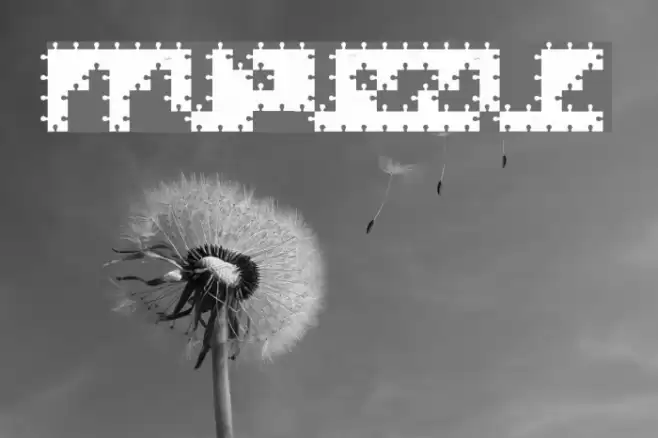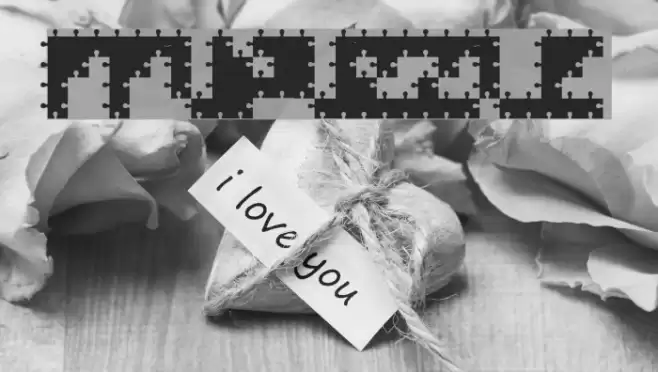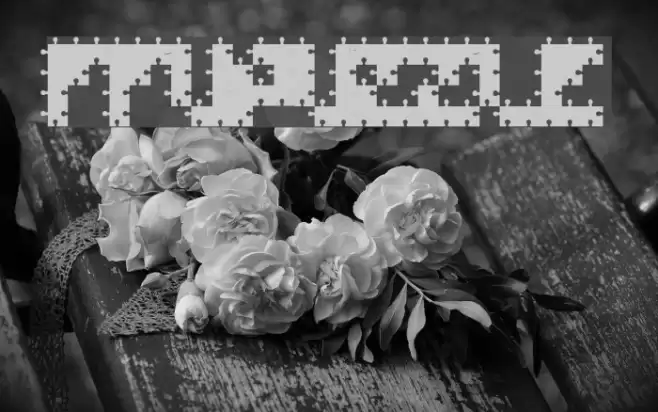
FFUPuzzle Font
FFUPuzzle Description
This font features a unique, pixelated design that resembles a jigsaw puzzle pattern. Each character is composed of small, square blocks that fit together, creating a distinctive and playful appearance. The font maintains a consistent blocky structure across all characters, giving it a cohesive look. The uppercase and lowercase letters, as well as numbers and special characters, all share this puzzle-like aesthetic. The font's bold and chunky style makes it highly visible and attention-grabbing, suitable for creative and informal applications.
A bold, pixelated font with a jigsaw puzzle design from Uncategorized fonts.
- Proposed Projects: Ideal for video game graphics, children's book titles, playful branding, and creative posters.